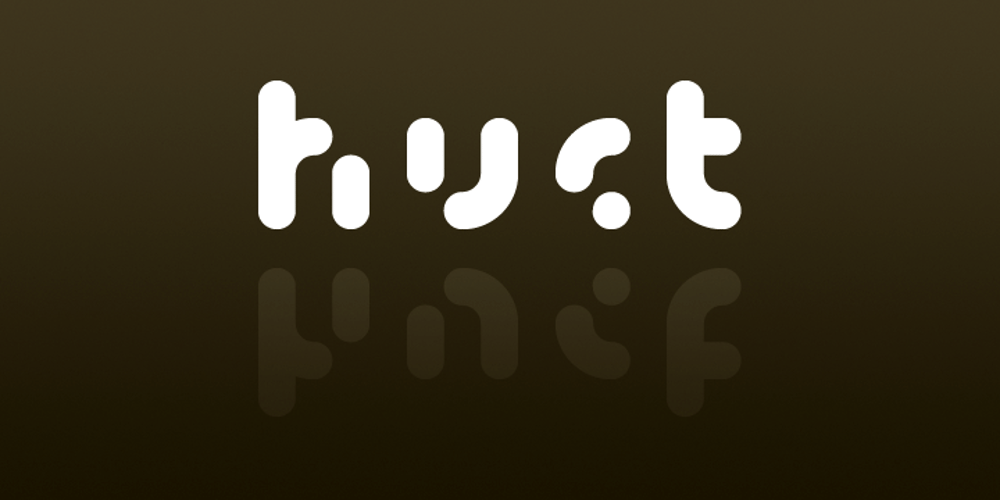
Huet Font Family was designed by Thomas Johnson Quinn and published by Blank Is The New Black. Huet contains 1 styles and family package options. Huet is a continuation of the work started with Versteeg. Where Versteeg was separated into individual circles, Huet connects these circles and adds a smooth geometric style.